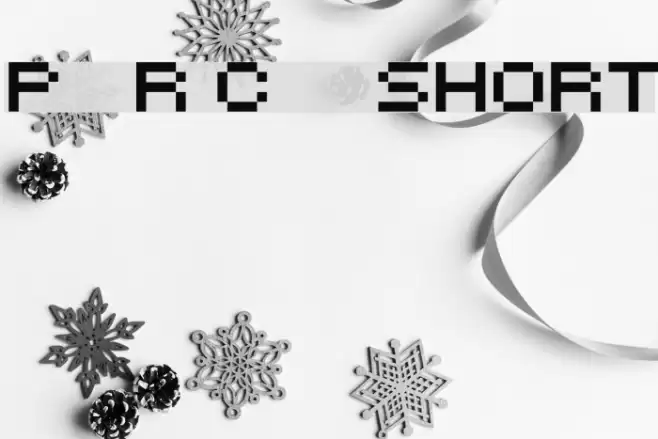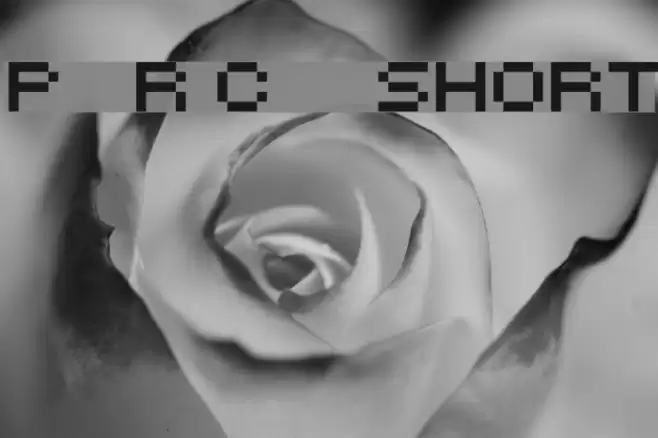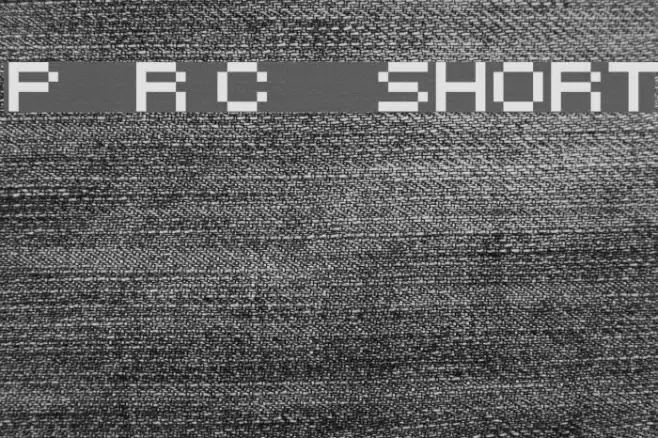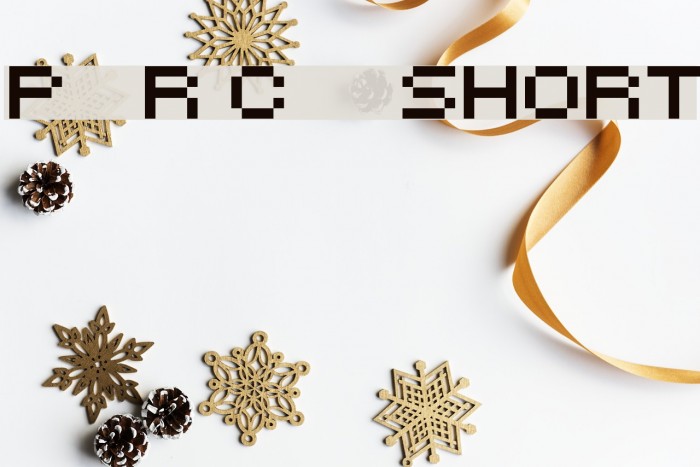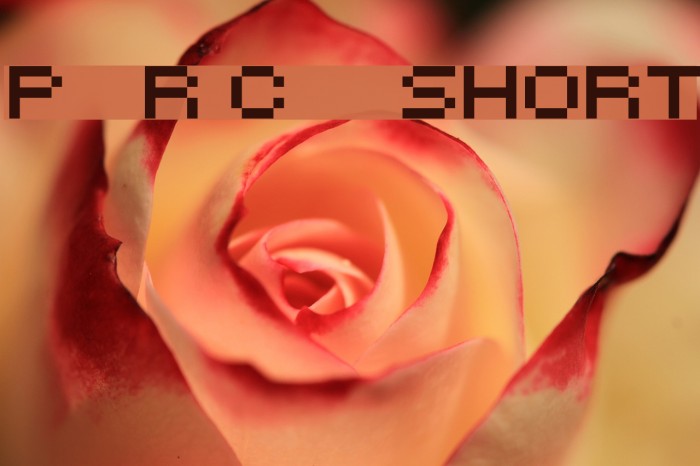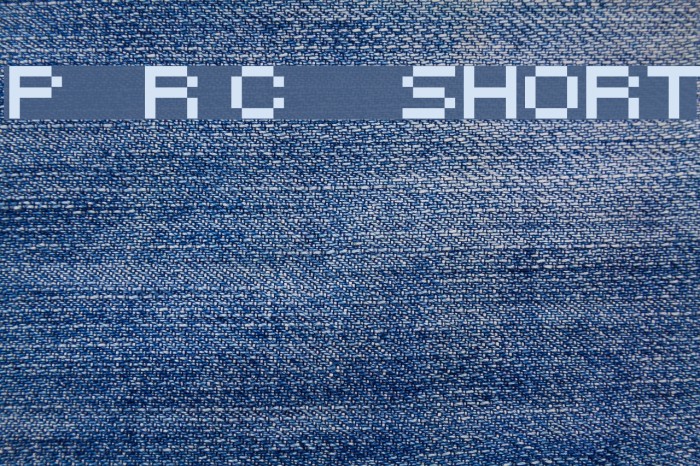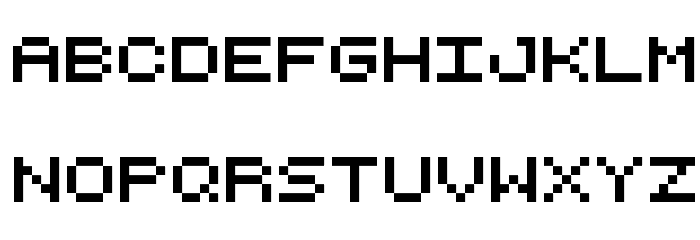
Petyka - Retro Computer___SHORT Font
Petyka - Retro Computer___SHORT Description
This font embodies a retro, pixelated style reminiscent of early computer and video game graphics. Each character is constructed from a grid of square pixels, giving it a distinctly digital and nostalgic appearance. The uniformity and simplicity of the design evoke a sense of classic arcade games and vintage computing. The characters are monospaced, ensuring consistent spacing and alignment, which enhances readability in digital formats. The font's blocky structure and lack of curves contribute to its bold, straightforward aesthetic, making it ideal for projects that aim to capture a retro or tech-inspired look.
A retro, pixelated font inspired by early computer graphics from Uncategorized fonts.
- Proposed Projects: Ideal for retro-themed designs, video game graphics, tech-inspired branding, and digital art projects.
- Overall Style: Vintage
- Use Case: Headlines, Logos, Digital displays